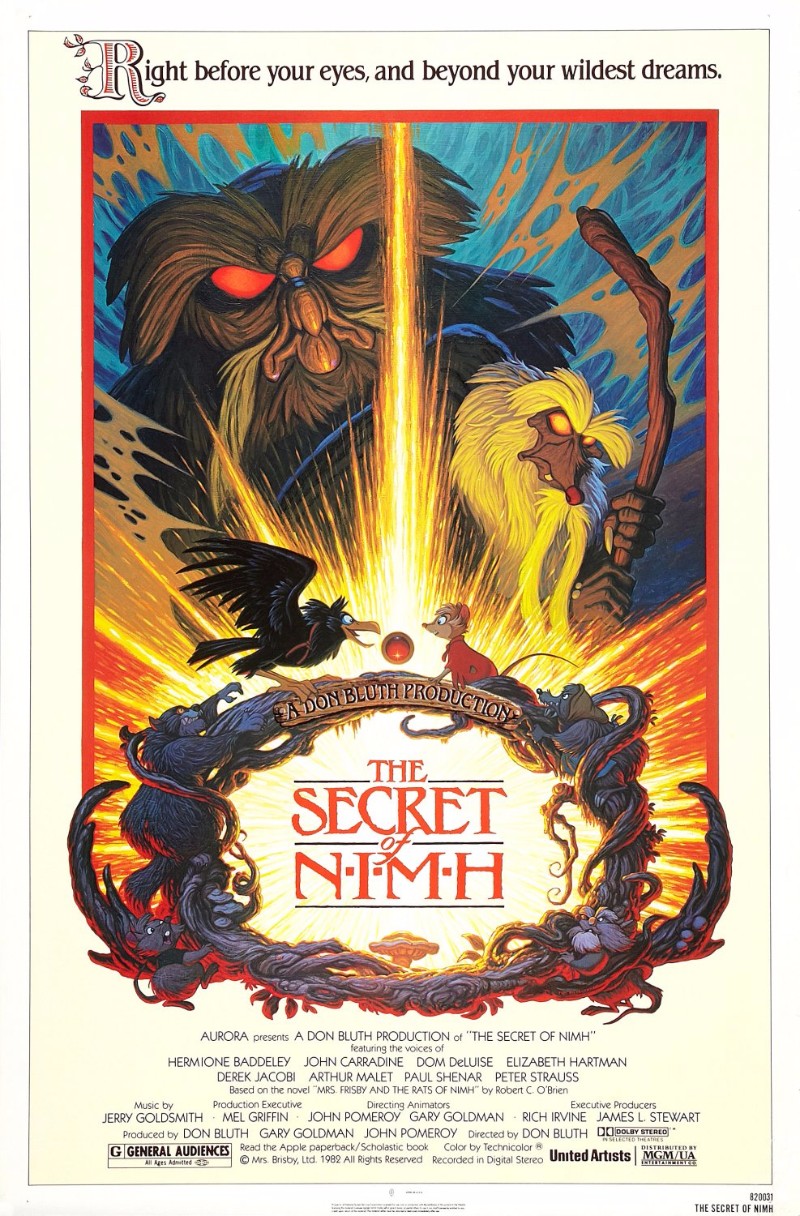
The Secret of NIMH Font
AdventureThe Secret of NIMH is a 1982 animated fantasy adventure film directed by Don Bluth, based on the 1971 children's novel Mrs. Frisby and the Rats of NIMH. In this film, a group of lab rats given intelligence-enhancing drugs team up with a widowed mouse named Mrs. Brisby to save her home and family from being destroyed by farmers.
The Secret of NIMH title in the poster uses ITC Benguiat, designed by Ed Benguiat in 1978. Benguiat letterforms are heavily influenced by the Art Nouveau typefaces.